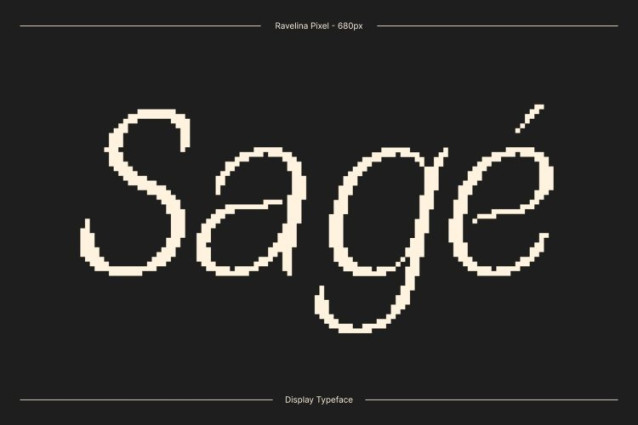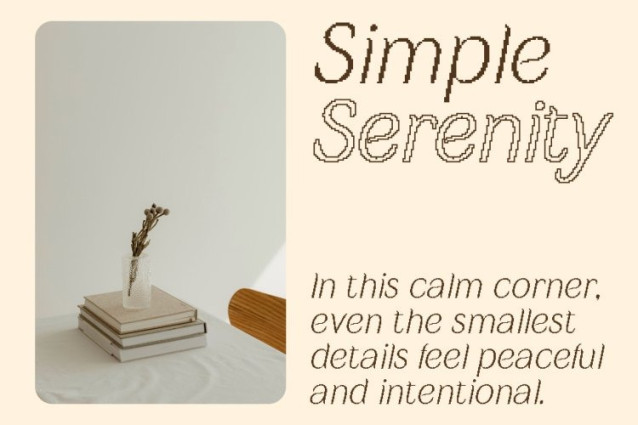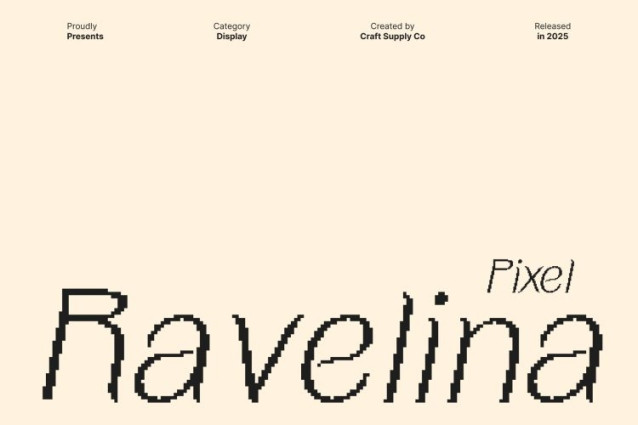
Ravelina Pixel Font
Ravelina Pixel Font This is an elegant sans serif font designed to exude refinement and sophistication. Its gracefully elongated details and smooth curves create a polished, high-end appearance, making it perfect for luxury design projects, editorial layouts, and premium branding. Every character reflects meticulous craftsmanship while maintaining a contemporary appeal.
Refined Curves and Elongated Details for Elegance
The font’s subtle elongation and carefully shaped curves provide a sense of sophistication and visual harmony. Its sleek, modern lines ensure clarity and readability while conveying an upscale, artistic impression. This font is ideal for designers seeking a typeface that combines elegance with a modern twist, enhancing both print and digital applications.
Pixel Shape Adds Unique Digital Character
Enhanced with a pixel-inspired shape, this font introduces a creative digital texture that adds uniqueness and visual interest. The pixel detail bridges classic sans serif refinement with contemporary digital artistry, giving the typeface a stylish and distinctive personality suitable for modern branding and editorial design.
Perfect for Luxury Design, Editorials, and Branding
This font excels across high-end applications, from sophisticated editorial spreads and luxury packaging to premium branding and digital campaigns. Its refined curves, elongated details, and pixel-infused aesthetic create a harmonious blend of elegance, artistry, and digital flair.